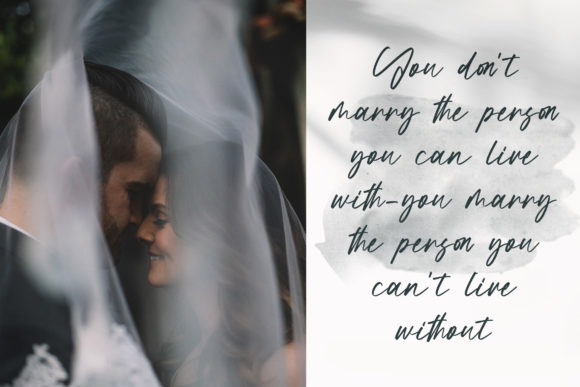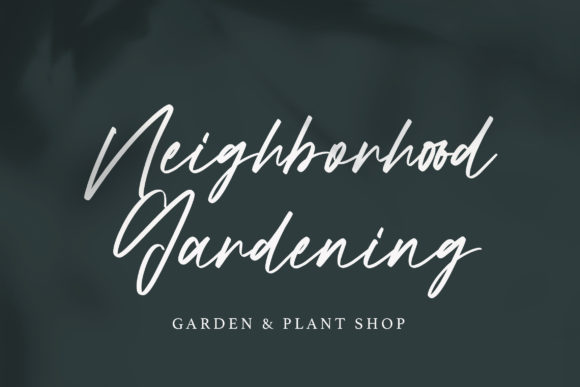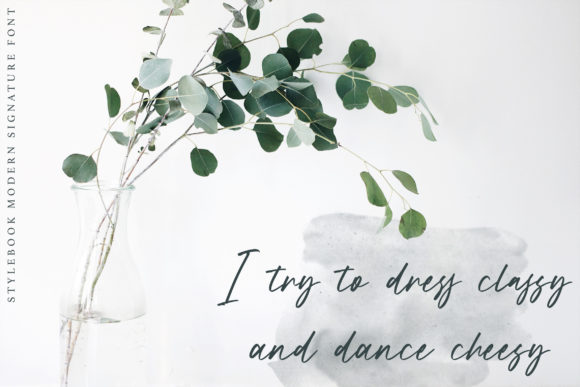
About Stylebook Font
Introducing Stylebook, a delicate, fashionable, and uniquely lettered script font that embodies elegance and style. With its graceful and distinctive letterforms, Stylebook adds a touch of sophistication to any design. This versatile script font offers a wide spectrum of applications, making it suitable for various creative projects, from charming greeting cards to captivating headlines. Incorporating Stylebook into your next project is sure to infuse it with a romantic and refined feel.
The beauty of Stylebook lies in its intricate details and carefully crafted lettering. Each stroke is meticulously designed to create a harmonious flow, evoking a sense of grace and fashion. The delicate curves and refined flourishes of this font exude an air of elegance, making it an excellent choice for projects that require a touch of sophistication.
One of the standout features of Stylebook is its versatility. This font adapts effortlessly to different design needs, offering a wide range of applications. Whether you’re creating wedding invitations, branding materials, editorial layouts, or social media graphics, Stylebook’s adaptable nature ensures it complements your project flawlessly. Its romantic essence shines through, captivating viewers and enhancing the overall aesthetic.
Additionally, Stylebook lends itself perfectly to headlines and titles. The unique letterforms and artistic flair make a bold statement, drawing attention and creating a lasting impression. Whether you’re designing magazine covers, website banners, or promotional materials, Stylebook adds a touch of glamour and allure, instantly elevating the visual impact of your project.
Stylebook not only brings beauty but also readability to your designs. The carefully balanced proportions and legible letterforms ensure that your message is conveyed with clarity. The font maintains a delicate balance between artistic expression and functionality, allowing your audience to engage effortlessly with your content.
Incorporating Stylebook into your next project guarantees a captivating and romantic feel. Its delicate yet fashionable script creates a sense of sophistication, making it a versatile choice for a variety of design applications. Let Stylebook become your go-to font, adding a touch of elegance and refinement to your creative endeavors.